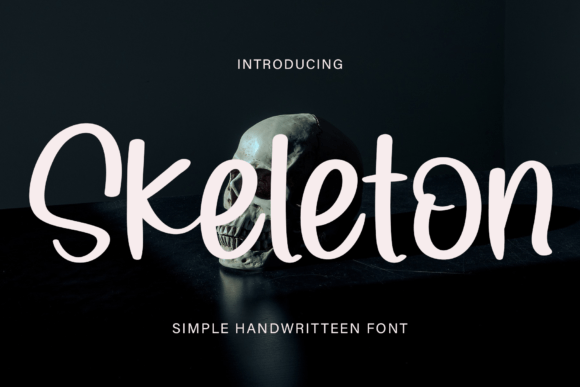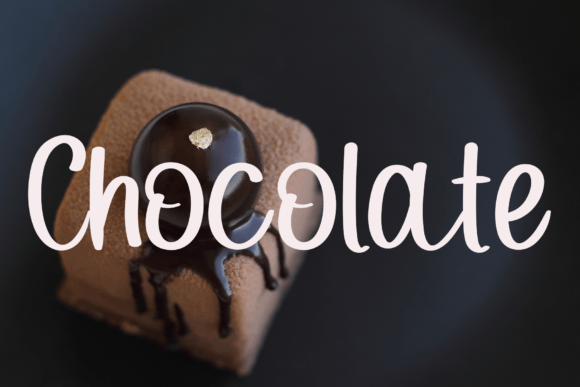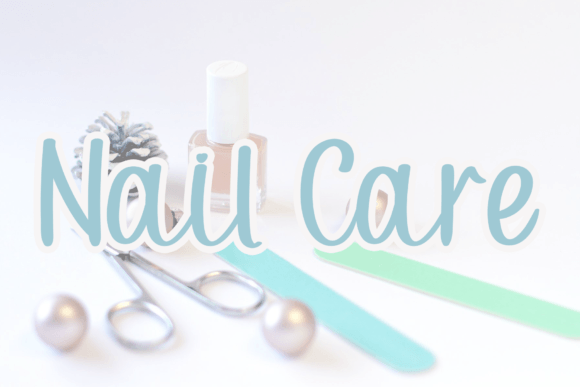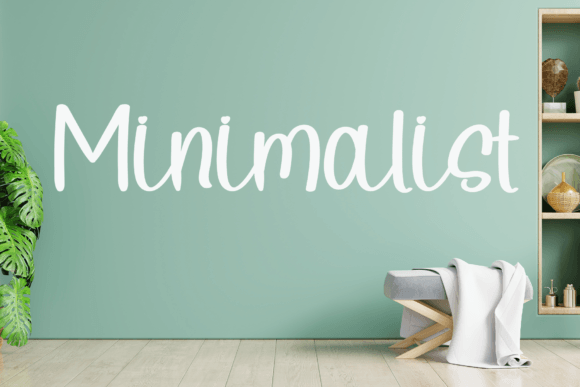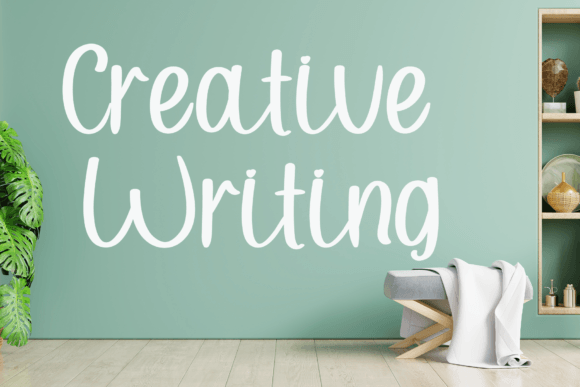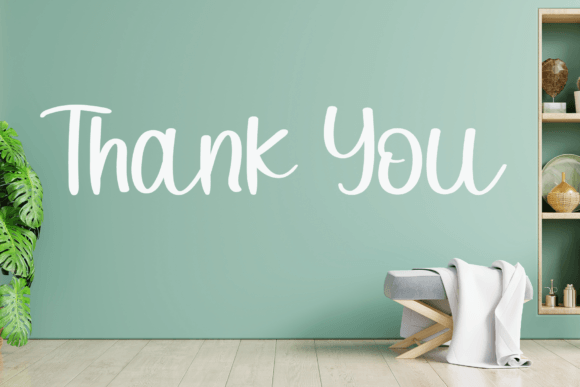
Skeleton Font
About Skeleton Font
**Skeleton Handwritten Font – A Contemporary Elegance for Your Designs**
The Skeleton Handwritten Font is a trendy and contemporary typeface that combines timeless calligraphic influences with a modern atmosphere. This font exudes elegance and class, making it a versatile choice for various design projects. Here are some ways you can incorporate the Skeleton Handwritten Font into your designs:
1. **Invitations and Greeting Cards:** Create elegant invitations for weddings, formal events, or special occasions with the Skeleton font. Its contemporary flair adds a touch of sophistication to your stationery.
2. **Logo Design:** Craft logos and brand identities with a sense of timeless elegance using the Skeleton font. Its balanced and impeccable form conveys a classic yet modern aesthetic.
3. **Branding and Packaging:** Use the Skeleton font to enhance the branding and packaging of premium products such as cosmetics, fashion, or gourmet foods. It adds a refined touch to product labels and promotional materials.
4. **Magazine Headings:** Apply the Skeleton font to magazine headings and article titles to give your publication a contemporary and upscale look. It’s well-suited for fashion, lifestyle, and design magazines.
5. **Wine and Spirits Labels:** Design labels for fine wines, spirits, or craft beverages with the Skeleton font. Its clean and stylish appearance complements the quality of these products.
6. **High-End Menus:** Create sophisticated restaurant menus with the Skeleton font to elevate the dining experience. It’s perfect for upscale eateries and fine dining establishments.
7. **Wedding Stationery:** Design wedding stationery suites, including save-the-dates, menus, and thank-you cards, with the Skeleton font for a chic and classy look.
8. **Fashion Branding:** Craft logos, hangtags, and branding materials for fashion and apparel brands. The Skeleton font’s contemporary form adds a touch of haute couture.
9. **Art and Photography Portfolios:** Use the Skeleton font for artist and photographer portfolios, websites, and promotional materials. It enhances the presentation of creative work.
10. **Social Media Graphics:** Create stylish and eye-catching social media posts, quotes, and announcements using the Skeleton font. It’s ideal for brands and influencers aiming for a modern and sophisticated online presence.
11. **Event Promotion:** Promote cultural events, art exhibitions, or high-end gatherings with the Skeleton font. It lends a sense of artistic refinement to promotional materials.
12. **Luxury Packaging:** Design packaging for luxury goods, jewelry, or designer accessories with the Skeleton font. Its contemporary elegance enhances the perceived value of products.
13. **Corporate Identity:** Use the Skeleton font for corporate branding, including business cards, letterheads, and presentations, to convey a sense of professionalism and style.
14. **Book Covers:** Design book covers for novels, poetry collections, or art books with the Skeleton font to create a visually appealing and timeless design.
15. **Fine Art Prints:** Apply the Skeleton font to fine art prints and posters that showcase the beauty of modern calligraphy and handwritten art.
The Skeleton Handwritten Font’s contemporary atmosphere and impeccable form make it an excellent choice for design projects that require an elegant and classy touch. Its clean lines and modern aesthetics blend seamlessly with classic calligraphy, resulting in a typeface that suits a wide range of contexts. Whether you’re working on high-end branding, event promotions, or artistic portfolios, the Skeleton font adds a sense of timeless elegance and sophistication to your typography and design endeavors.